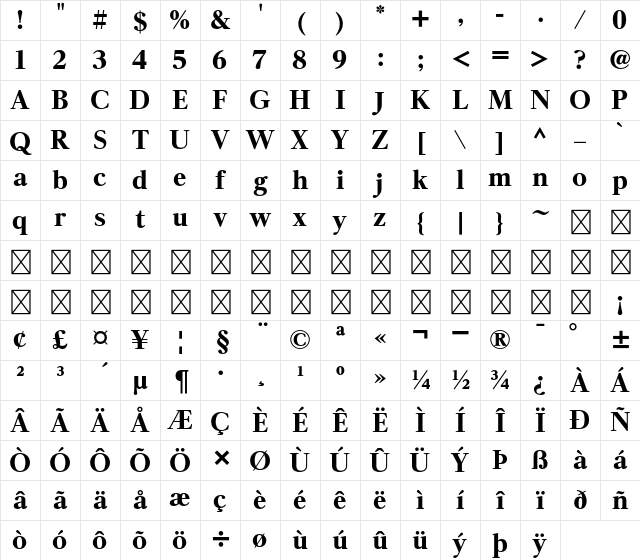
A-OTF Reimin Y10 Pr6N U
Style: U
Design Context for A-OTF Reimin Y10 Pr6N
A-OTF Reimin Y10 Pr6N is a composed and adaptable typeface that performs quietly and consistently across a wide range of design contexts.